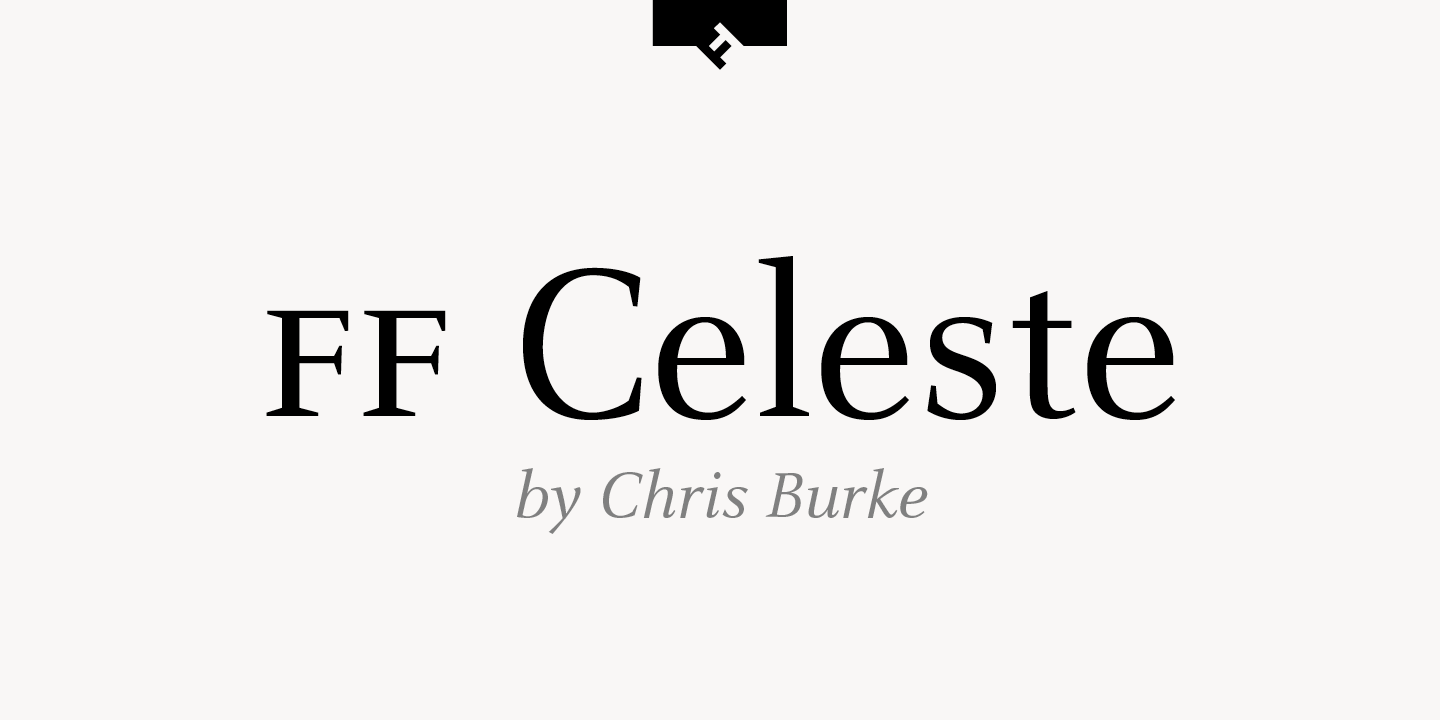
FF Celeste Font is perfect for book publishing, academic journals, magazine layouts, newspaper design, corporate reports, editorial content, literary publications, scholarly articles, professional documentation, and high-quality text-heavy applications requiring exceptional readability.
FF Celeste Font is exciting because it represents the pinnacle of text typography design, featuring meticulously crafted letterforms that achieve perfect balance between classical elegance and contemporary functionality, delivering unparalleled reading comfort and typographic sophistication for extended text applications.
The FF Celeste Font family includes Regular, Bold, Italic, Small Caps, Caption, Display, and OpenType variants, each maintaining the distinctive readable character while offering different weights and optical sizes for comprehensive professional publishing applications.
Experience typographic excellence with FF Celeste Font Free Download. This masterfully crafted typeface represents decades of typographic refinement, combining classical proportions with modern technical precision to create letterforms that excel in extended reading applications. The font's exceptional legibility and elegant character make it perfect for publishers, academic institutions, and professional organizations requiring the highest standards of typographic quality and reading comfort.
FF Celeste Font excels in professional publishing environments where readability and typographic sophistication are paramount. Its distinctive character draws from centuries of type design tradition while incorporating modern optical refinements, making it ideal for books, journals, and publications targeting discerning readers who appreciate both content quality and typographic excellence in their reading experience.
The development of FF Celeste Font involved extensive research into reading psychology and optical performance, ensuring each character optimizes legibility across various sizes and reading conditions. This scientific approach creates letterforms that reduce eye fatigue while maintaining the aesthetic beauty that makes reading a pleasure rather than a chore, particularly in lengthy text applications.
For designers working with publishers, academic institutions, or professional documentation, FF Celeste Font provides unmatched performance and reliability. It pairs seamlessly with supporting type families, adapts beautifully to various page layouts, and maintains its exceptional readability across both print and digital applications, ensuring consistent typographic excellence across all media.
Whether you're designing academic publications, literary works, professional reports, or editorial layouts, FF Celeste Font delivers the typographic authority that resonates with serious readers and content creators. Its combination of classical heritage and modern functionality makes it an indispensable tool for any project requiring the ultimate in text typography performance and reading satisfaction.